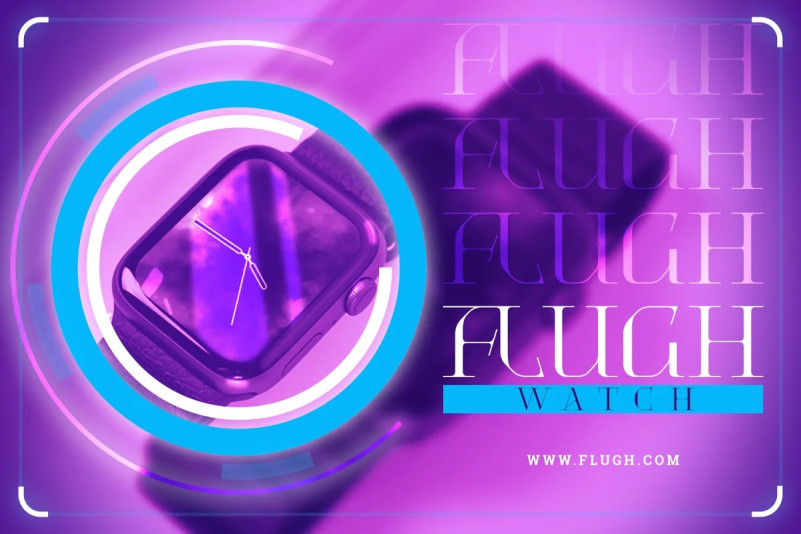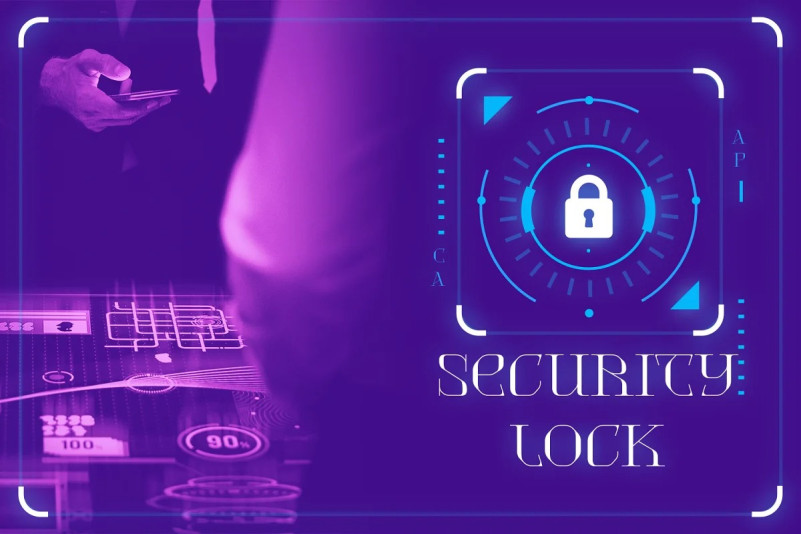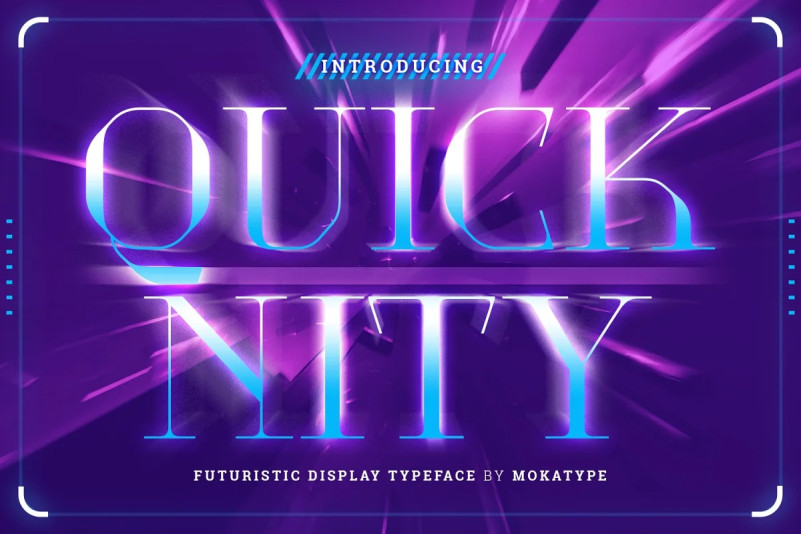
Quicknity Font
Quicknity Font is an angular serif font with future nuances, and consistent angles throughout each letter, uppercase and lowercase have the same size, so you can exchange between them in any design. Quicknity is perfect for large text, like headlines or designs with a short text.